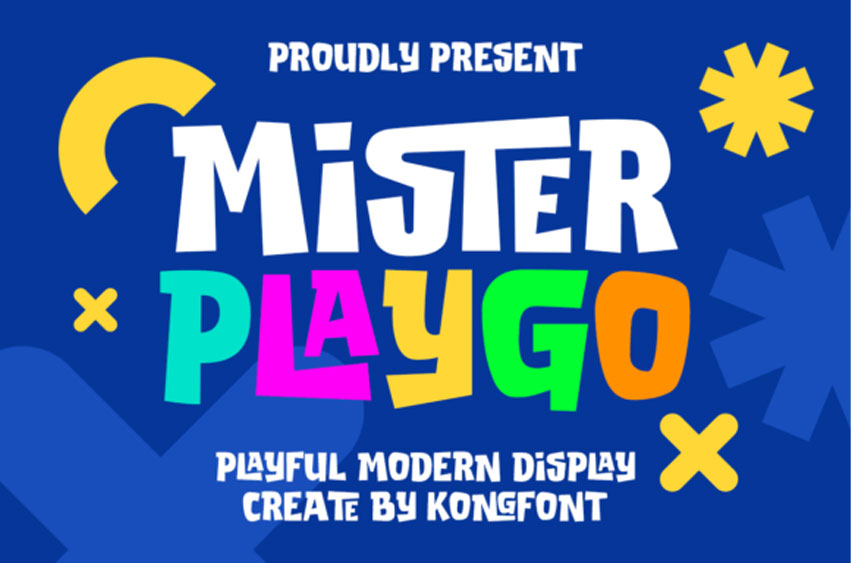
Mister Playgo Font Display Kids Font, a fun and lively typeface designed to capture the imagination of young audiences. With its bold, playful characters and vibrant style, Mister Playgo is perfect for children’s books, party invitations, educational materials, and any project that needs a touch of youthful energy.
This font brings a sense of joy and excitement to your designs, making it ideal for creating captivating and engaging content for kids. Whether you’re designing for a classroom, a birthday party, or a playful brand, Mister Playgo Display Kids Font adds a cheerful and friendly vibe to your work.
This font is PUA encoded, which means you can access all of the cute glyphs and swashes with ease!